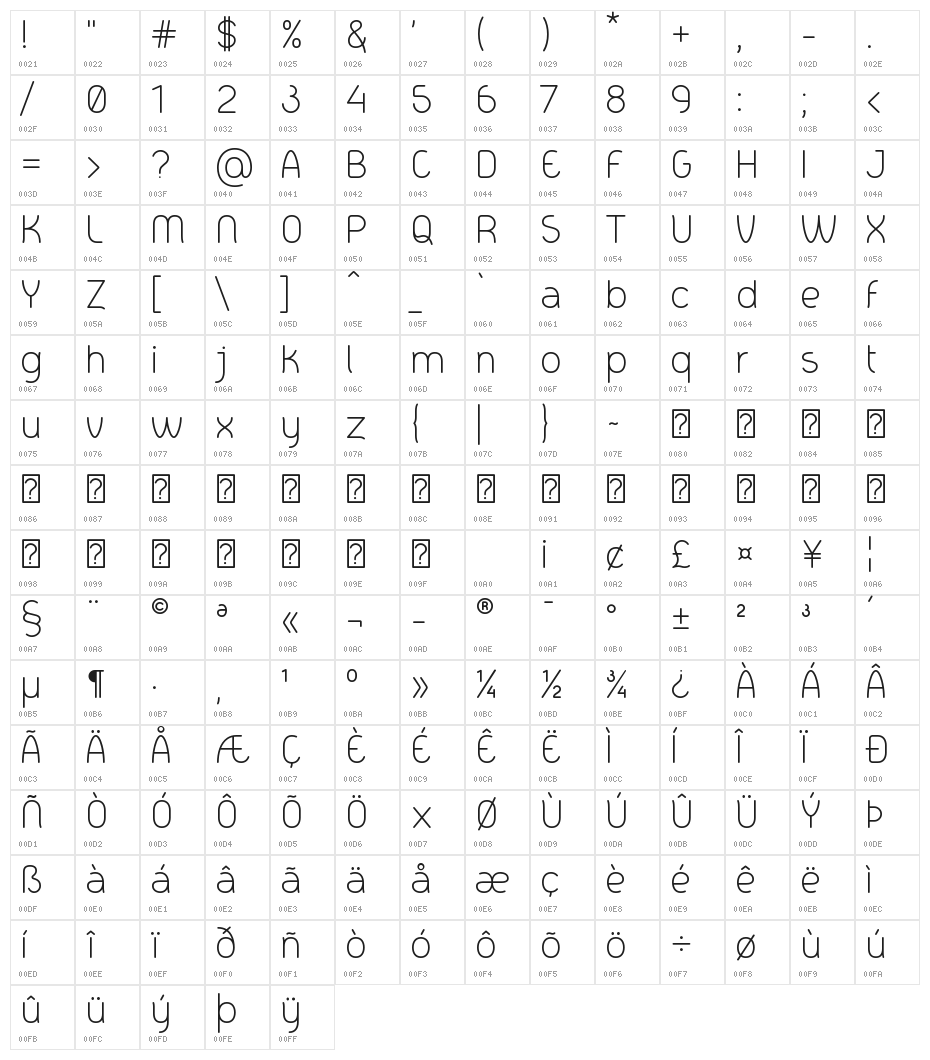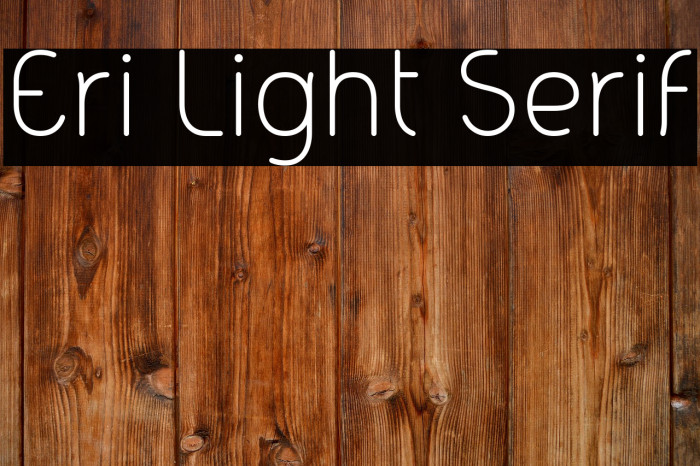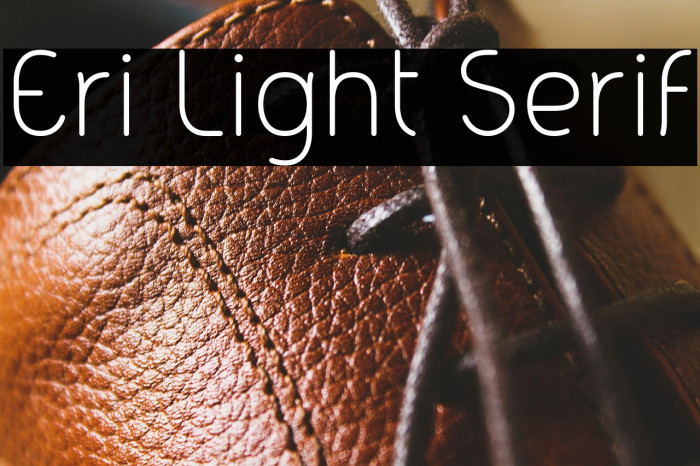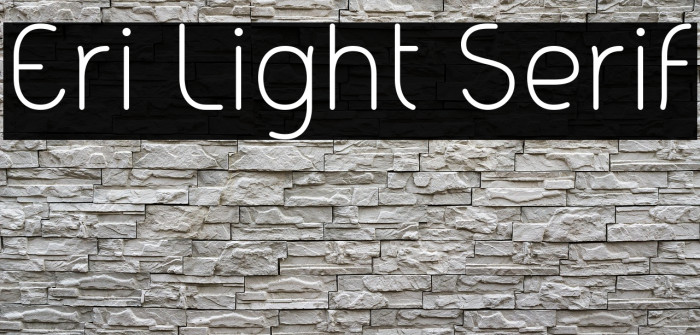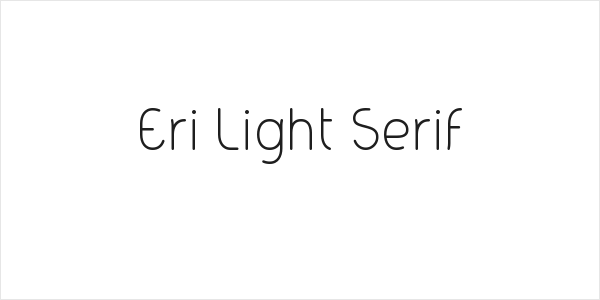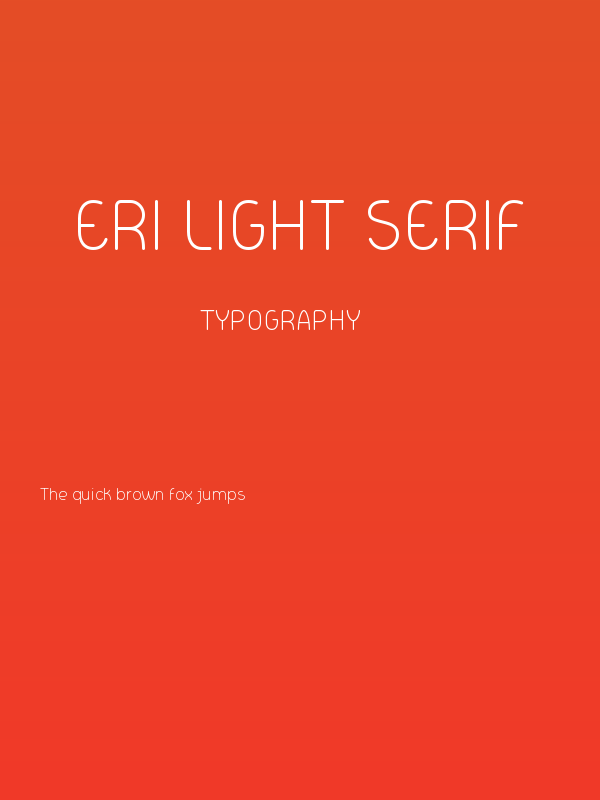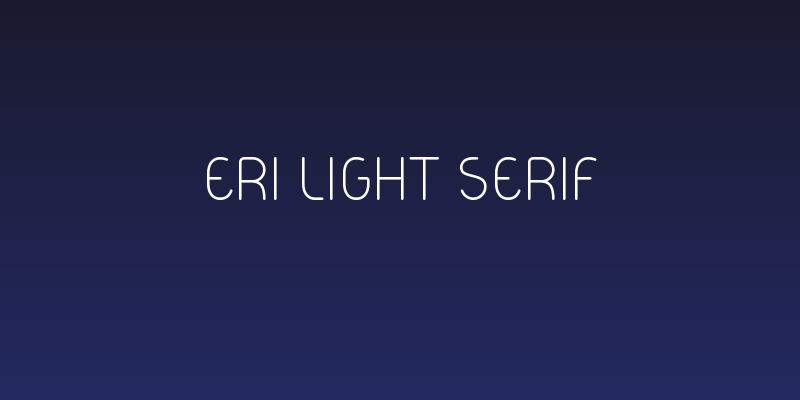
Eri Light Serif Font
Eri Light Serif Description
This font features a clean and modern design with a light and airy feel. The characters are rounded and have a consistent stroke width, giving it a sleek and minimalist appearance. The uppercase and lowercase letters maintain a uniform height, contributing to its balanced look. The numerals and special characters are designed to match the overall style, ensuring coherence throughout. Its simplicity and elegance make it highly versatile for various design applications.
| Proposed Projects | Ideal for branding, web design, and modern print materials where a clean and contemporary look is desired. |